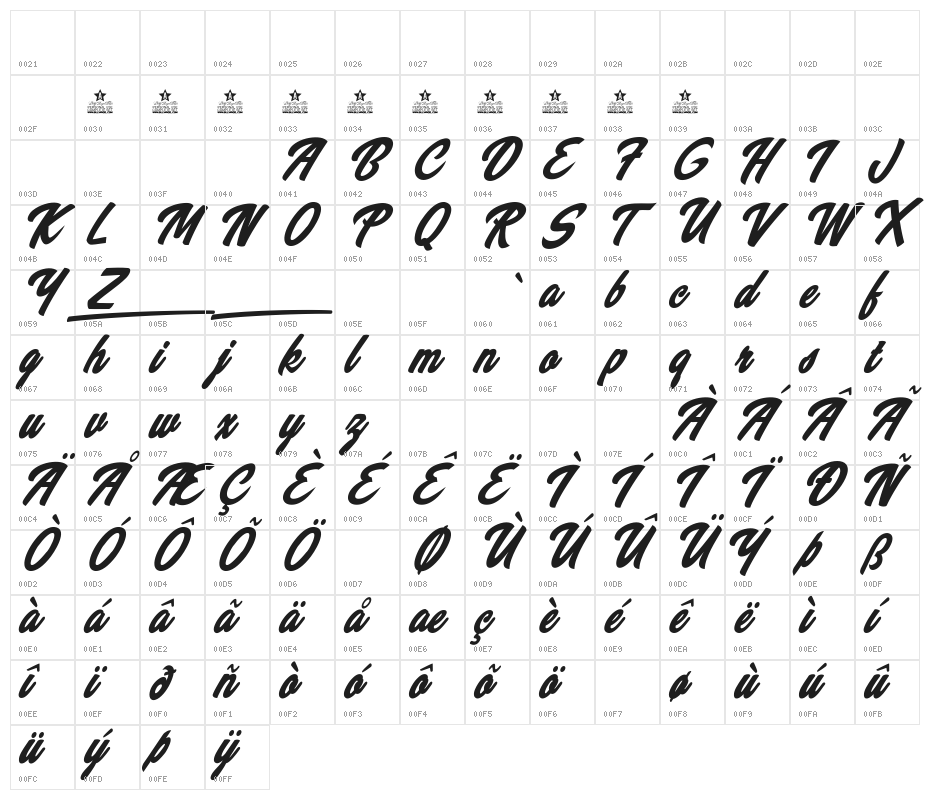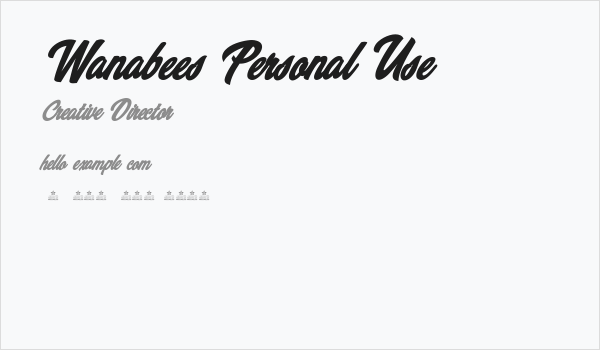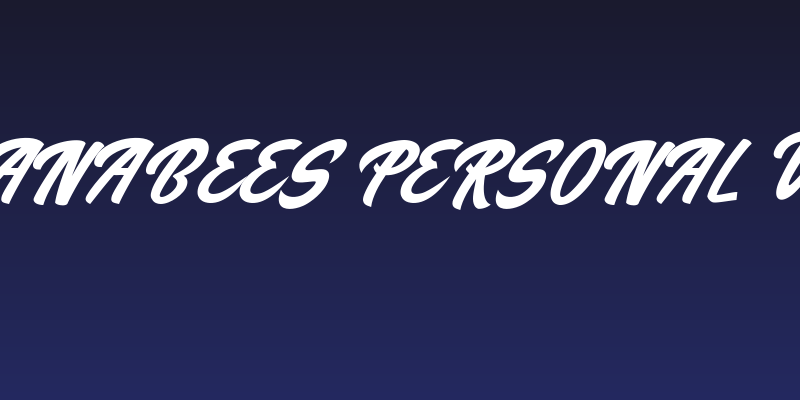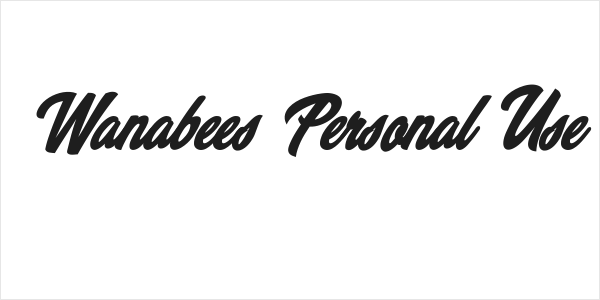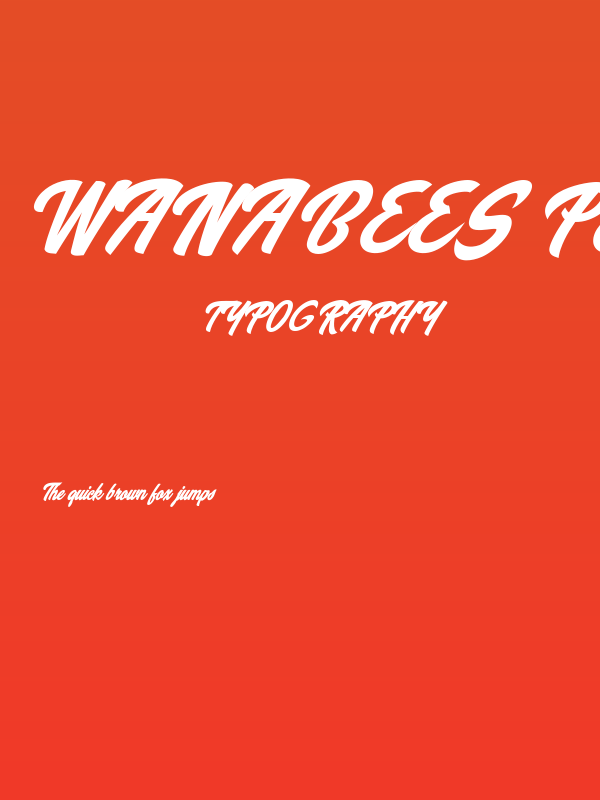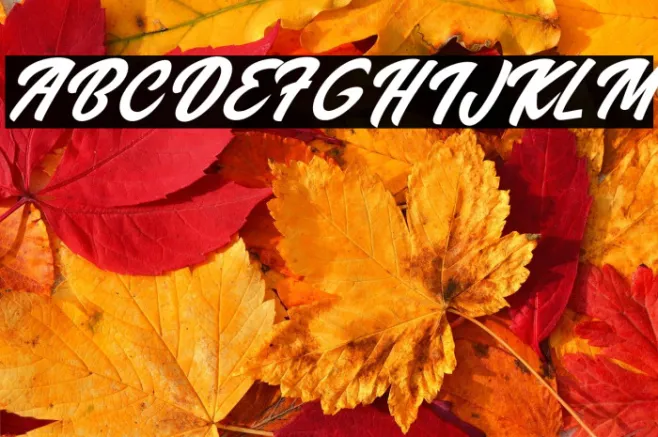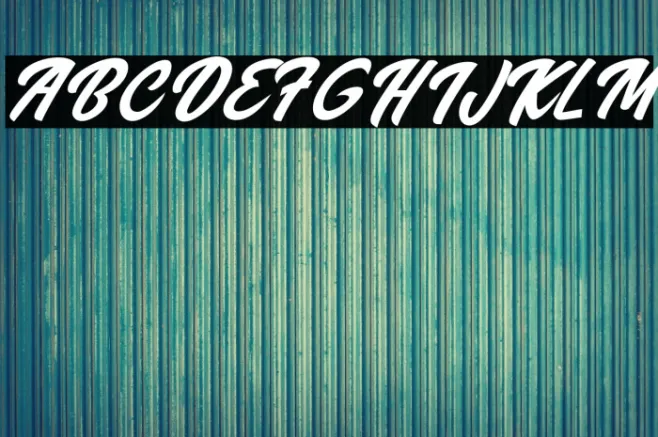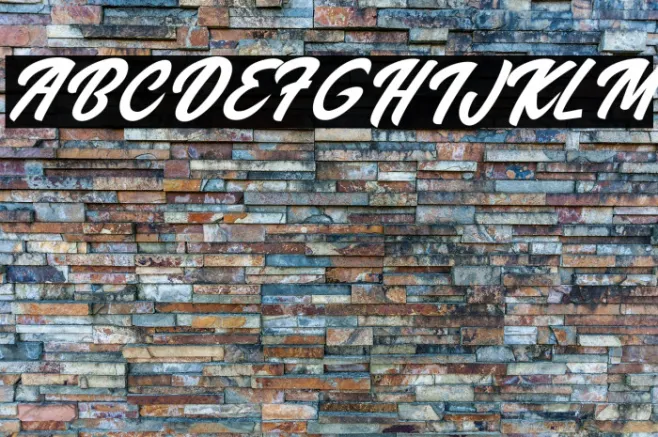
Wanabees Personal Use Font
Wanabees Personal Use Description
This font features a bold, cursive style with a strong emphasis on fluidity and elegance. The letters are interconnected, creating a seamless flow that is both dynamic and visually appealing. The uppercase letters are slightly larger and more pronounced, while the lowercase letters maintain a consistent height, contributing to the overall balance of the design. The strokes are thick and consistent, providing a sense of strength and stability. This font is ideal for projects that require a touch of sophistication and flair, such as invitations, branding, and decorative headlines. The special characters are designed to complement the alphabet, maintaining the same bold and flowing style.
| Proposed Projects | Ideal for invitations, branding, decorative headlines, and elegant designs. |